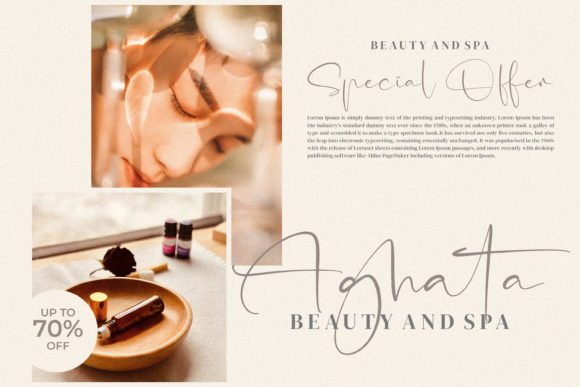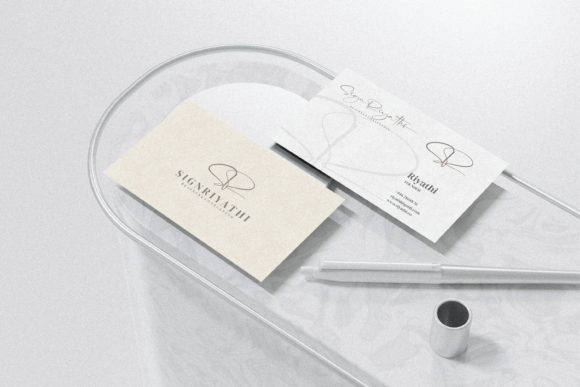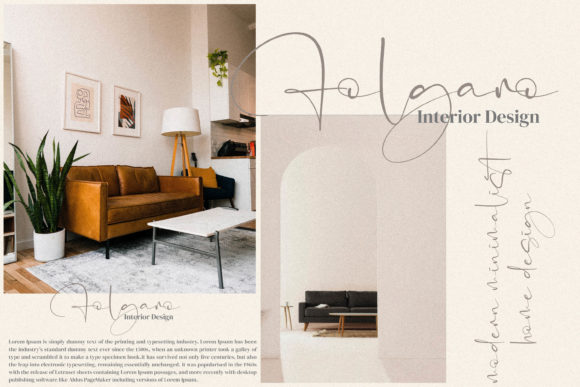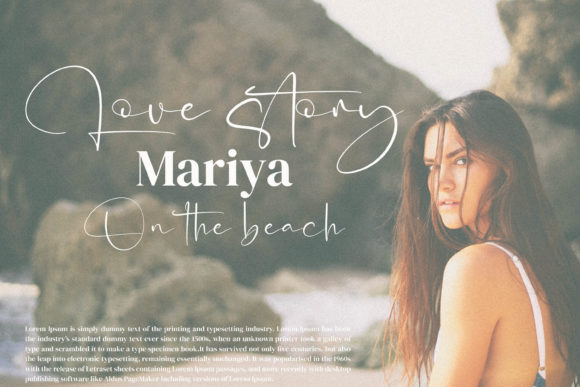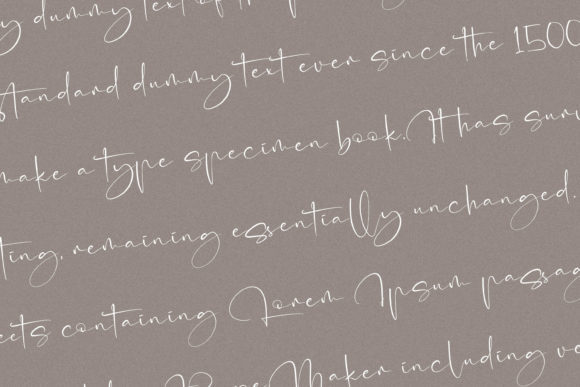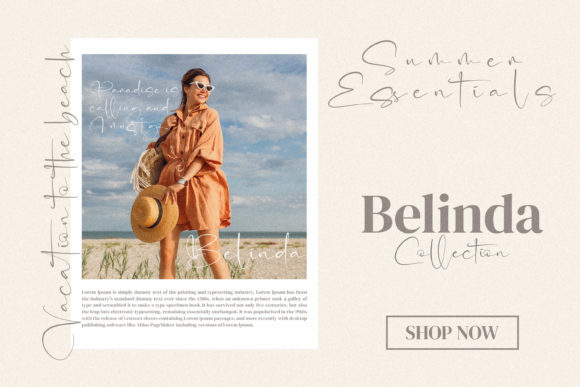
Introduction to Sign Riyathi Font
Sign Riyathi is a thin lettered and sweet calligraphy typeface with characters that dance along the baseline.
It will add a luxury spark to any design project that you wish to create .